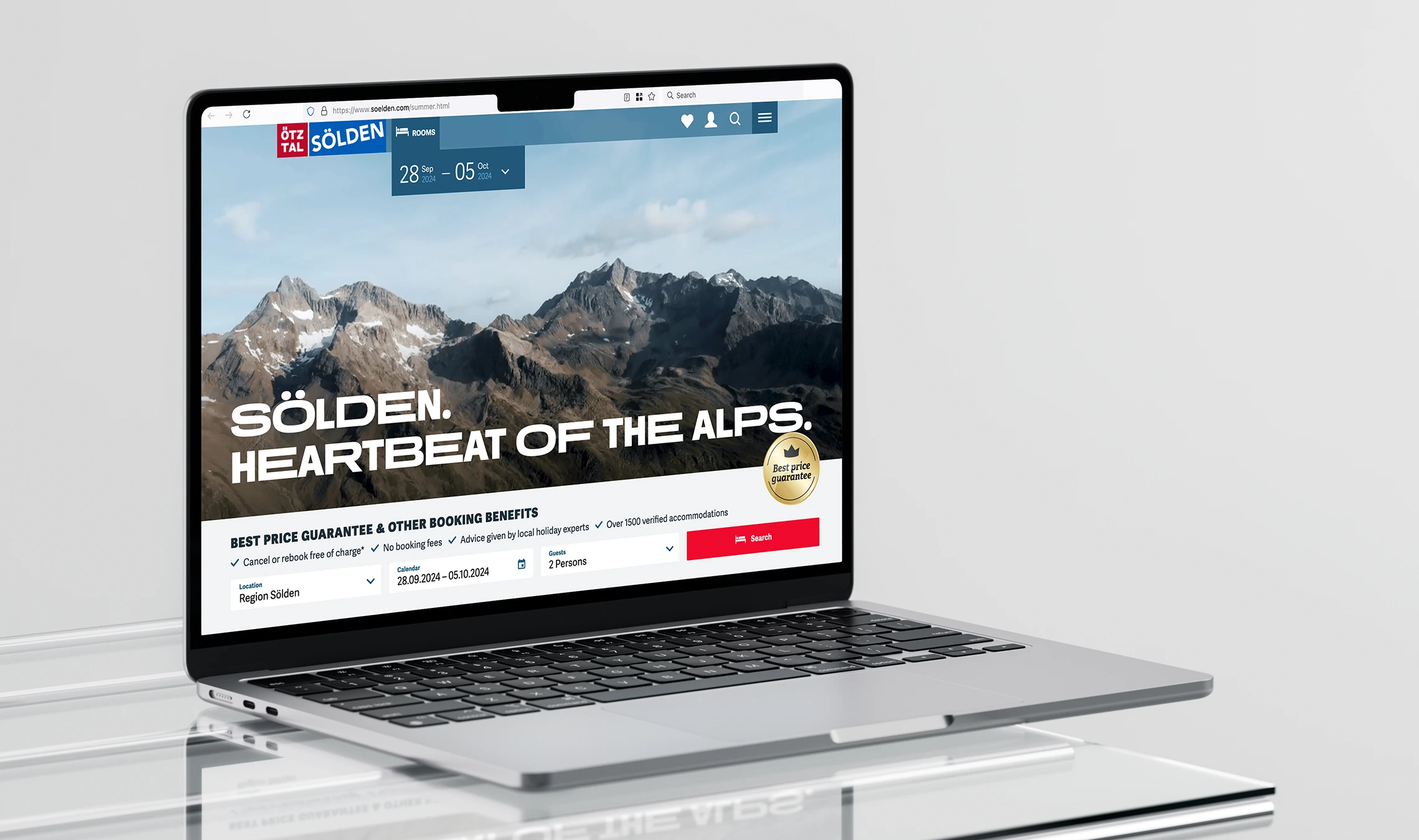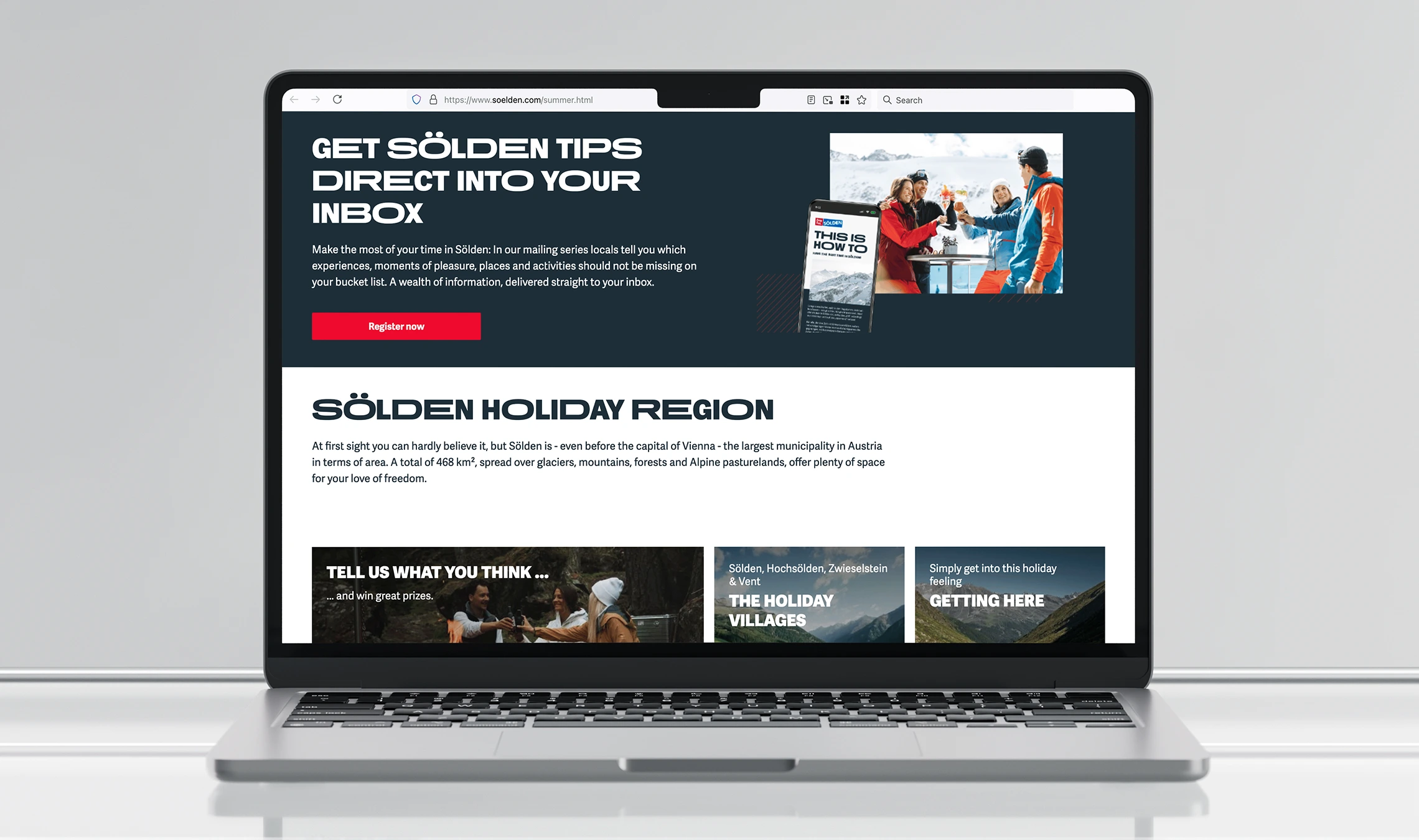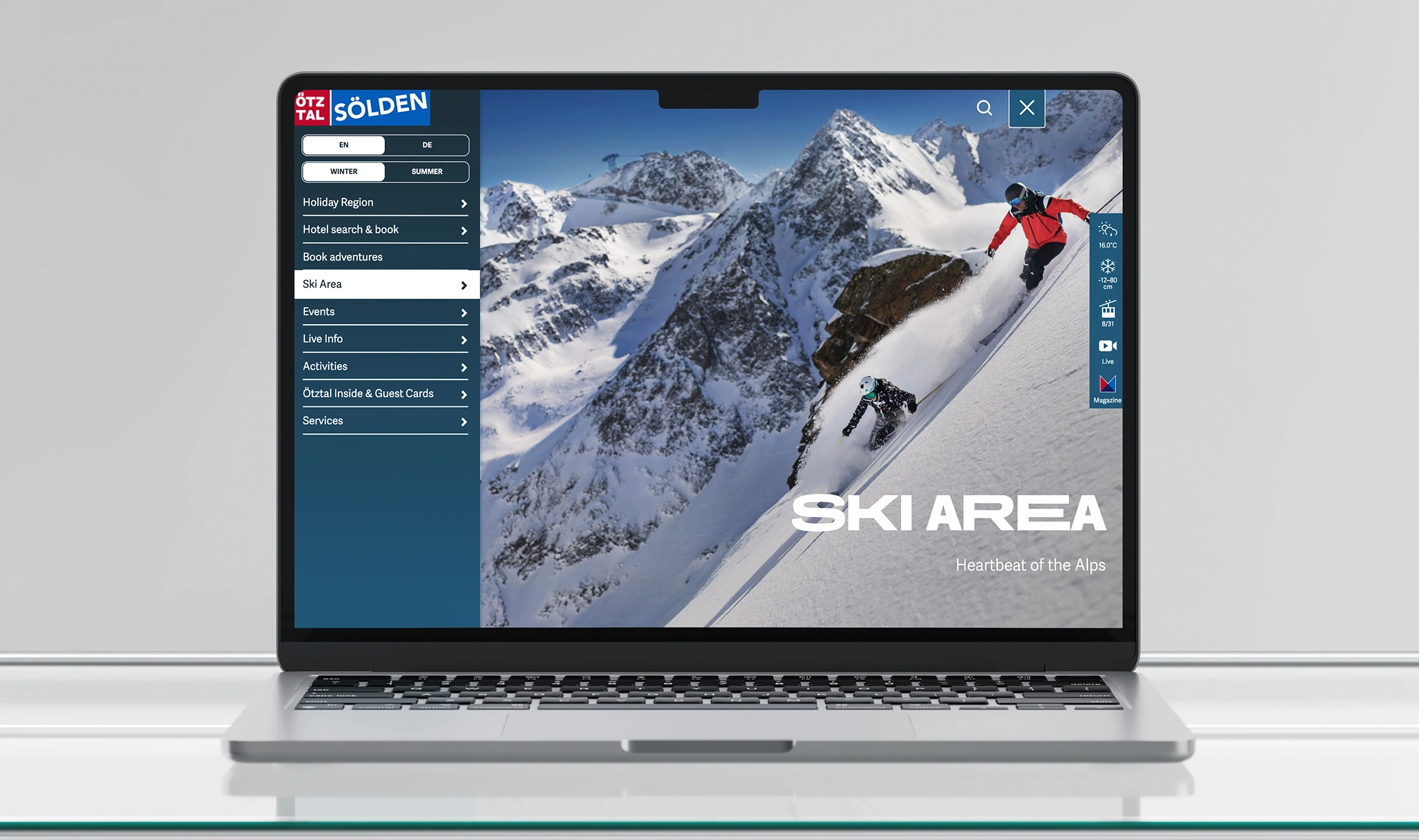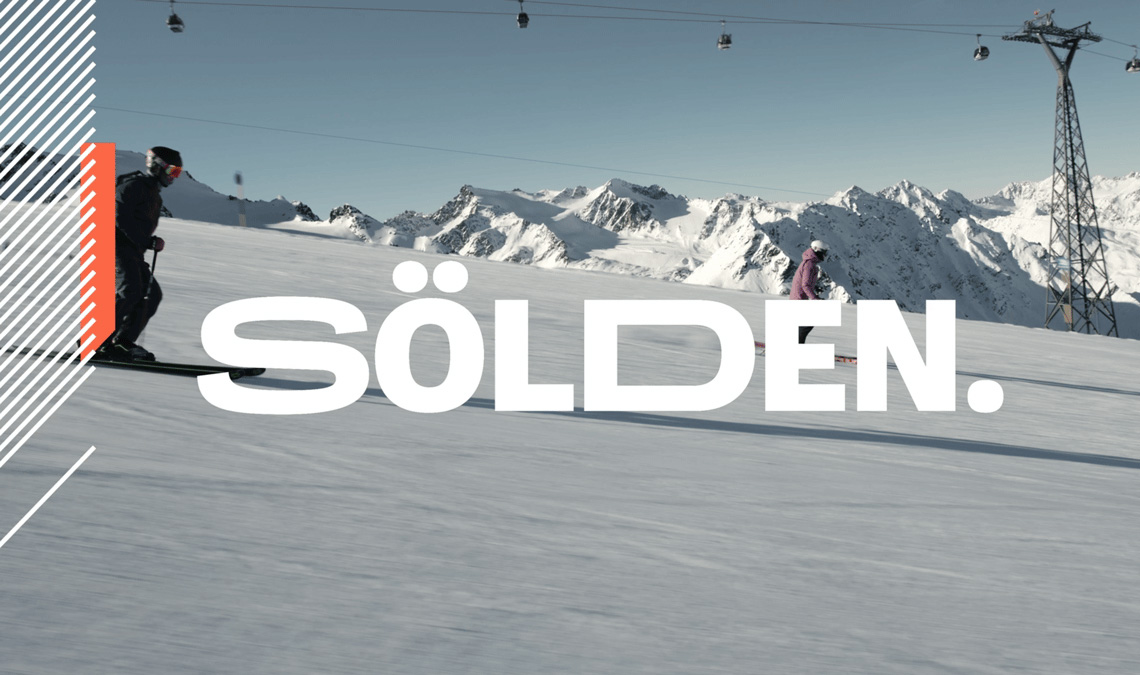
Adelle Sans Sölden Headline
Once again we collaborated with our long-term partner, the Austrian-based design agency Norden, on a project for the tourist board of the world-famous Austrian Ötztal region. In particular, for the most prominent resort town within the Ötztal valley — Sölden.
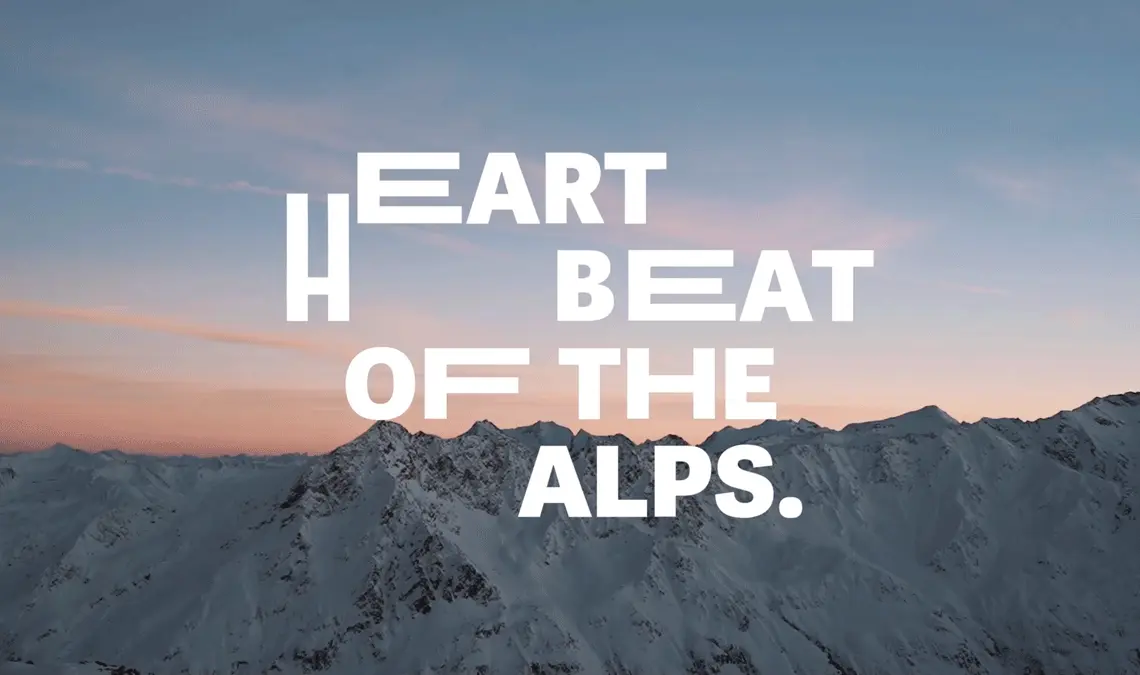
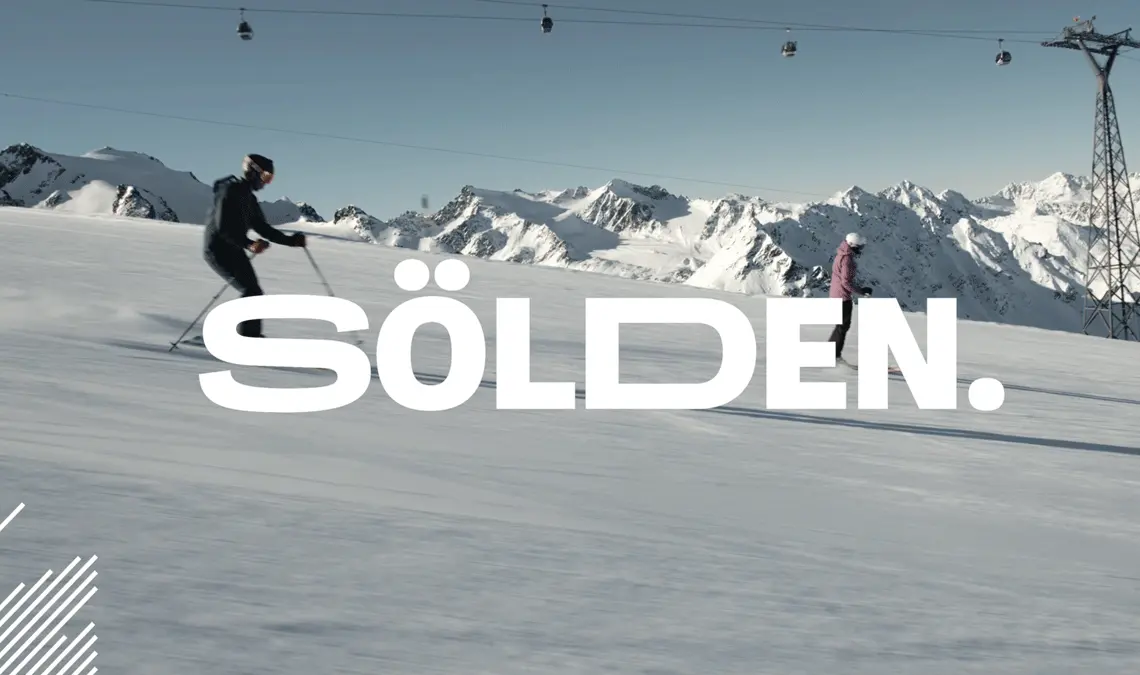AS Sölden
variable title font
The project involved a modification of TypeTogether’s Adelle Sans that has been in use in Sölden’s branding for a few years already. Their target group are young, active, and adventerous people who love sports, so the typography needed to reflect this vibrancy and dynamic activity.
Norden proposed the font to include stretched letters (capitals only) as a headline font complimentary to Adelle Sans in body copy. We created a variable font with two extreme points going from the extra-extended capitals to the regular width. The branding uses the variable font in motion graphics and thus creates a fluid and dynamic feel.